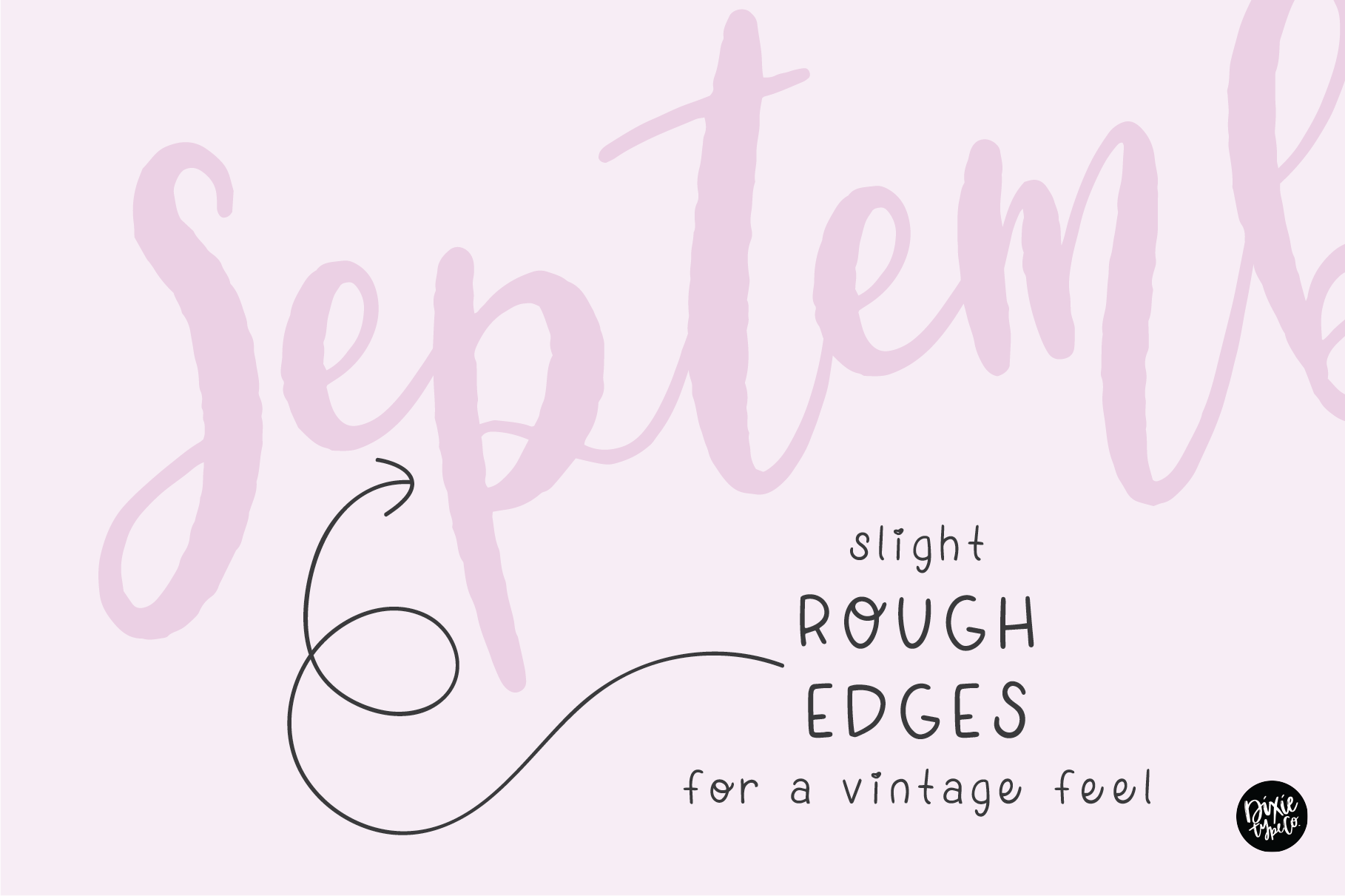
"September Baby" a fall farmhouse brush script font
September Baby is a bold, script hand lettered font. Please note that this font is not smooth. It is slightly distressed.